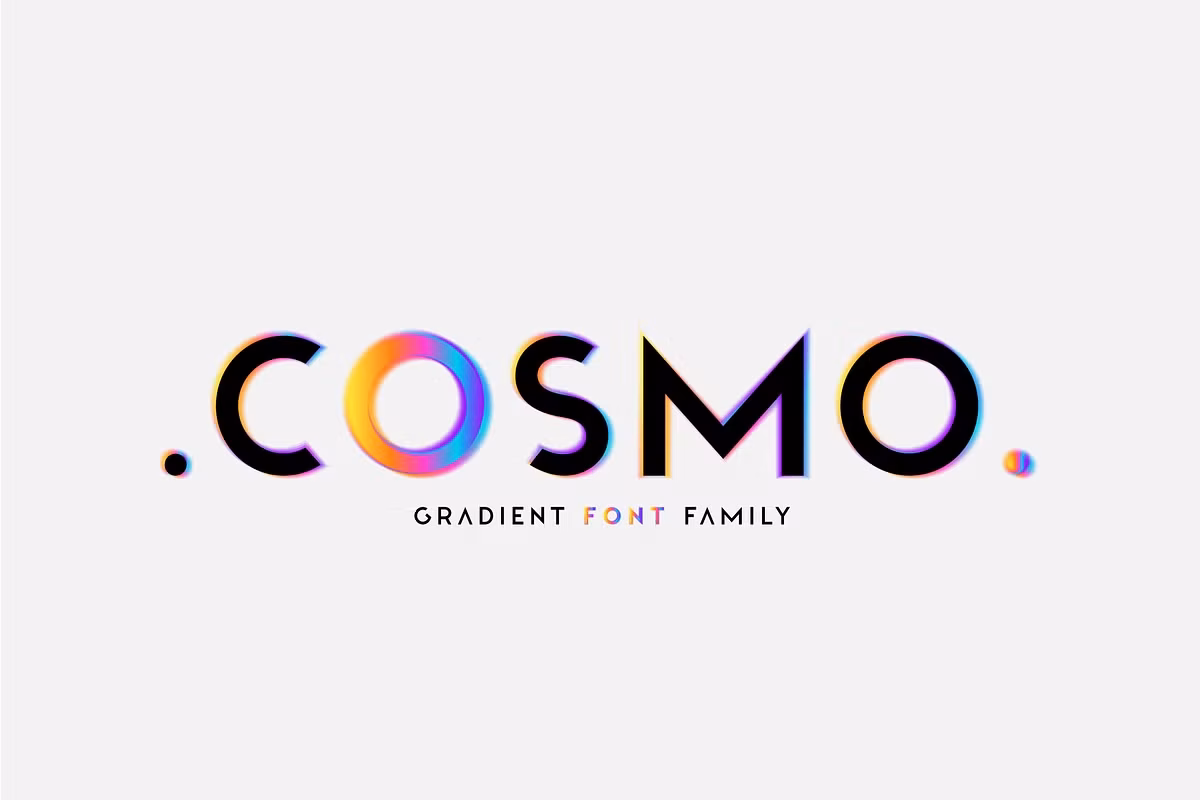
The Cosmo. OTF-SVG Hologram Family Free Download is a futuristic and eye-catching font family designed to bring a unique, holographic effect to your designs. With its stunning OTF-SVG technology, this font creates a dynamic, 3D hologram look that stands out in both digital and print media. Perfect for tech projects, gaming, advertising, and creative branding, Cosmo offers a bold and modern aesthetic. The holographic style adds a touch of innovation and sophistication, making your typography look sleek and futuristic. Please note, for commercial use, a license purchase is required. However, you can easily download the Cosmo. OTF-SVG Hologram Family Free Download for free for personal use and explore its potential. Download the Cosmo. OTF-SVG Hologram Family Free Download today and give your designs a modern, holographic flair.